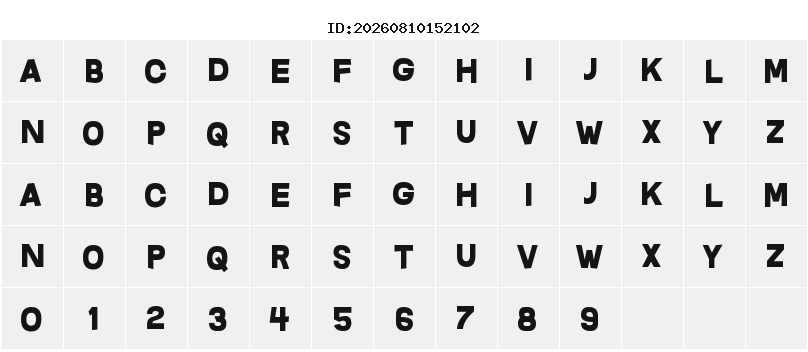
Questrian Preview
• Font Name: Questrian
• Font ID: Questrian:Version 1.00
• Full Font Name: Questrian
• Version: Version 1.00 May 1, 2014, initial release
• PostScript Name: Questrian
• Character Count: 368
• Description: This font was created using FontCreator 7.5 from High-Logic.com
About Questrian.otf
Questrian.otf is a modern, elegant sans-serif font designed for ultimate readability and visual harmony. Perfect for branding, headlines, web design, and print materials.